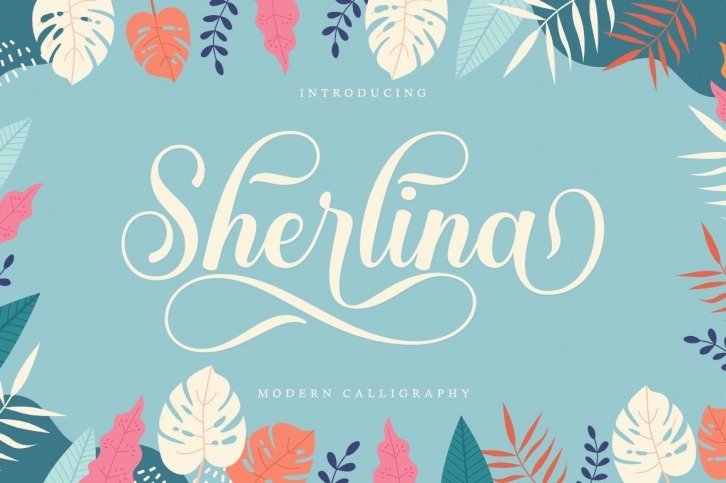
Sherlina Script is a gorgeous font that was realeased on July 26, 2021. The font can be used in many style contexts and design environments. Perfect for invitations, magazines, websites, logos, and more! It was designed by Strongco and the file size is 1.20 MB. Thanks for checking out this font!